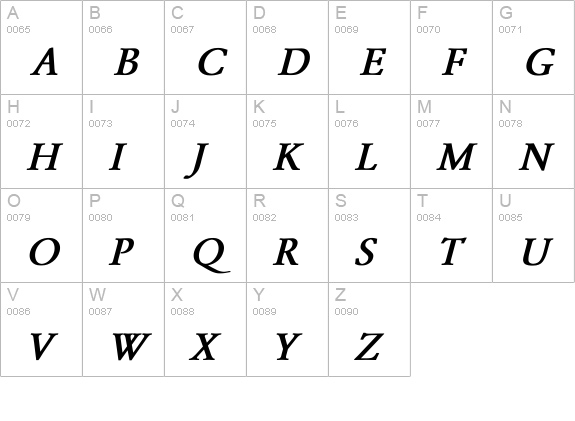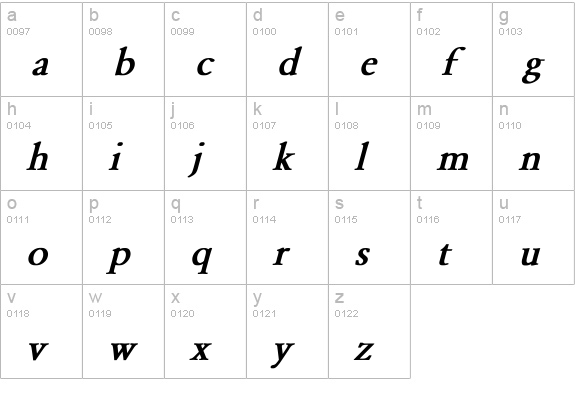
Garamond-Normal Bold Italic Font Details
Garamond-Normal Bold Italic is the standard, neutral, italic variant in the Garamond typeface family \xE2\x80\x94 well suited to general body text, paragraphs, and standard typographic work.
The Garamond-Normal Bold Italic font exudes elegance and sophistication with its sleek and stylish design. This versatile typeface strikes the perfect balance between classic and modern aesthetics, making it ideal for a wide range of projects. Its bold italic variation adds a touch of flair and emphasis to any text, making it stand out with a bold statement. What's even better is that this exquisite font is available for free download at FontsMarket.com. Now you can elevate your design projects with the timeless charm of Garamond-Normal Bold Italic without any cost. Whether you're working on invitations, branding materials, or editorial designs, this font is sure to make a lasting impression with its refined allure. Download it now and add a touch of sophistication to your creations.